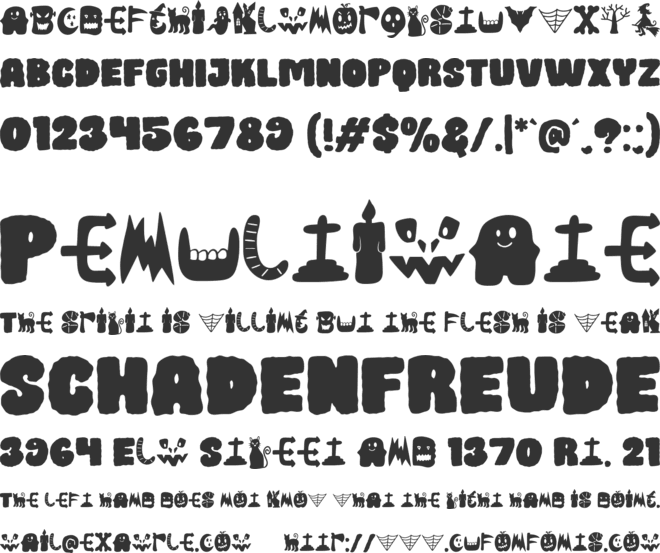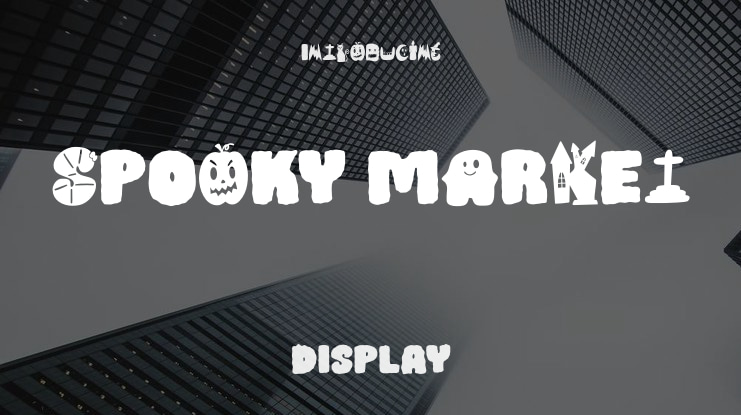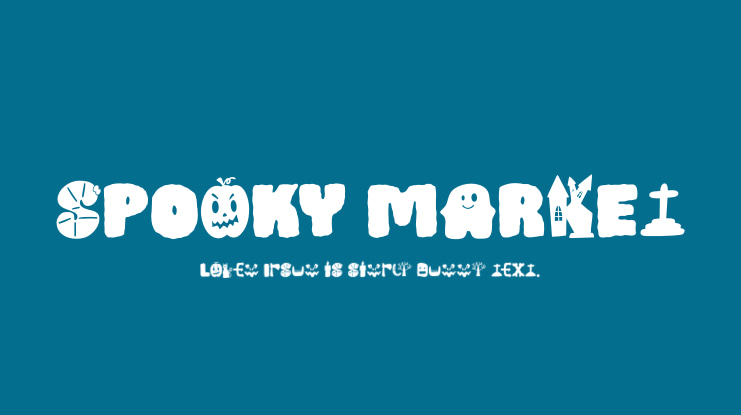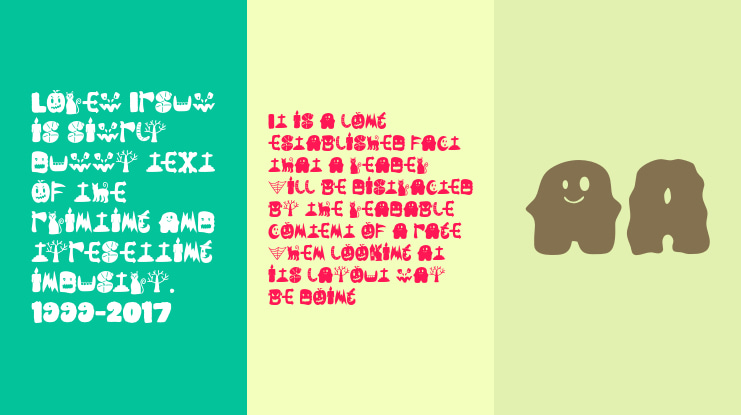
Spooky Market Font
Spooky Market is a bold and spooky decorative font with cute letters. Add it to your Halloween crafts, horror movie posters, t-shirts, and anything else that requires a spectacular look. Masterfully designed to become a true favorite, this font has the potential to bring each of your creative ideas to the highest level!